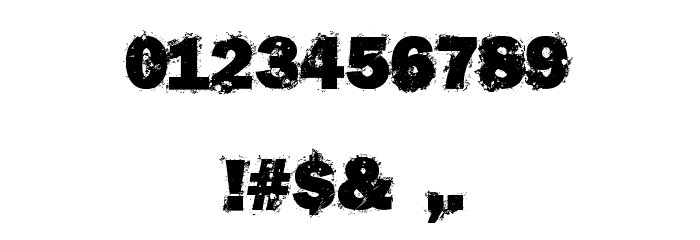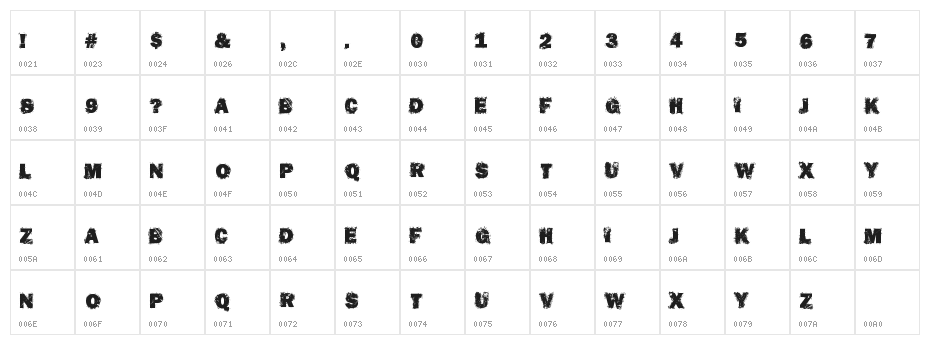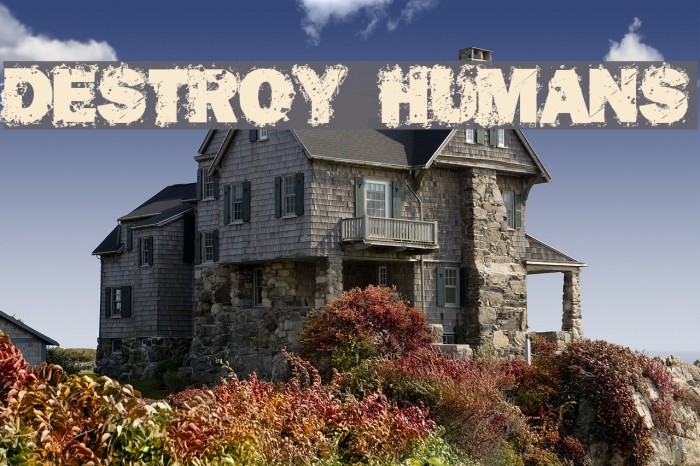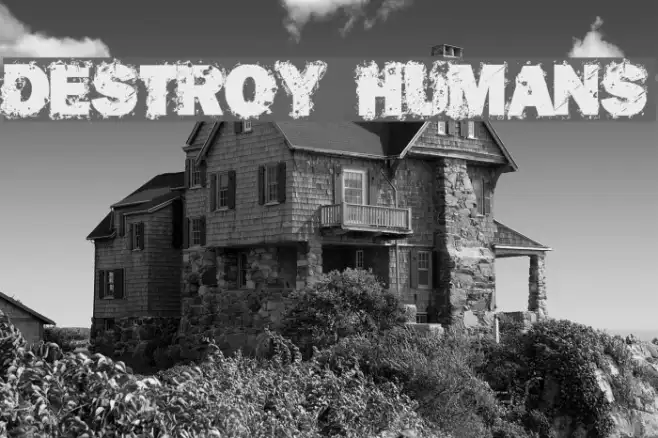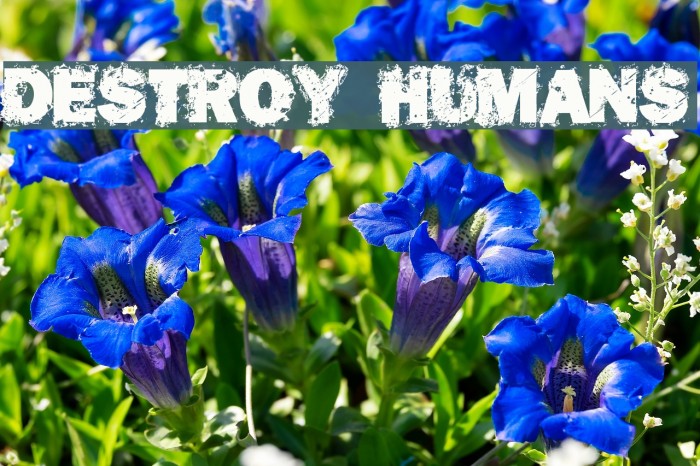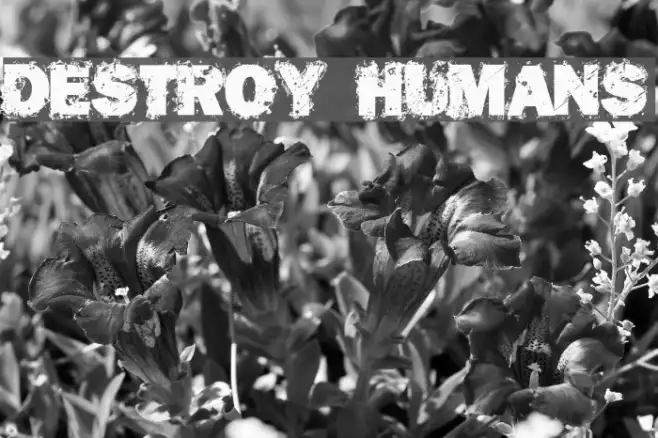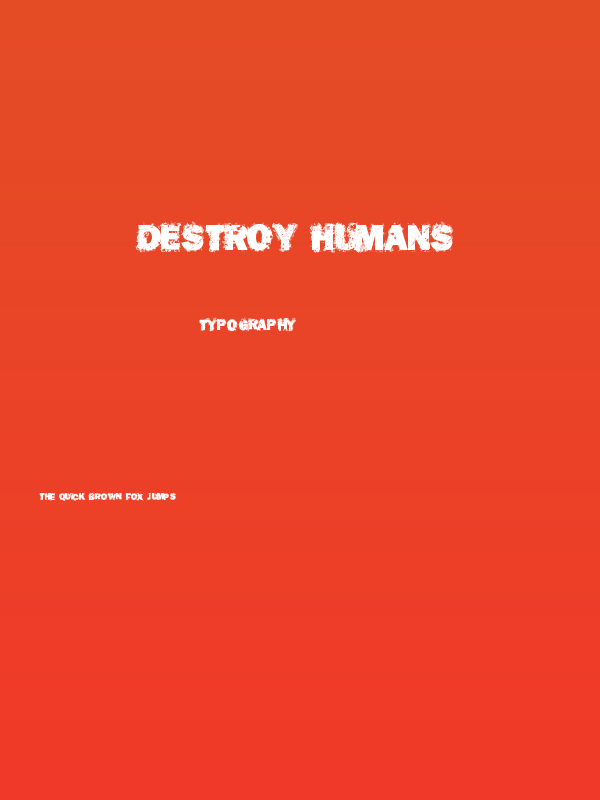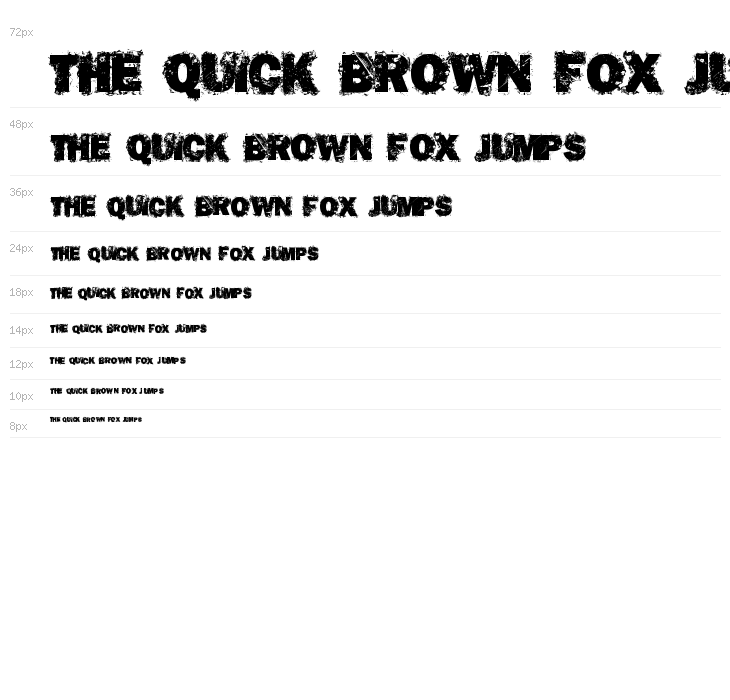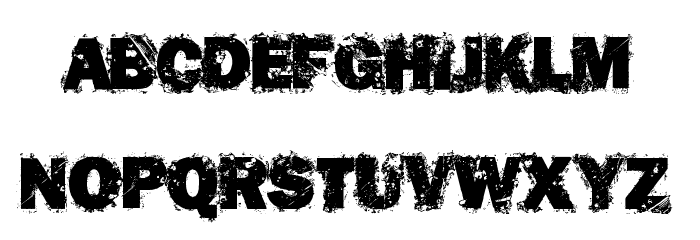
Destroy Humans Font
Destroy Humans Description
This font features a distressed and grungy appearance, with a bold and impactful style. The characters are heavily textured, giving them a worn and rugged look, reminiscent of eroded or decayed surfaces. The uppercase letters are prominent and maintain a consistent height, while the numbers and special characters follow the same distressed aesthetic. The font's unique style makes it stand out, ideal for projects that require a raw and edgy feel. Its boldness ensures visibility and impact, making it suitable for attention-grabbing designs.
| Overall Style | Grunge, Edgy |
| Proposed Projects | Ideal for posters, album covers, urban-themed designs, and any project needing a gritty, edgy aesthetic. |